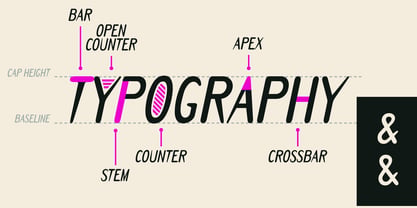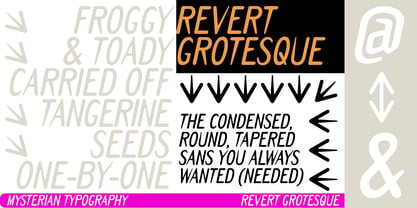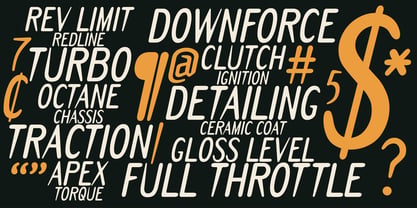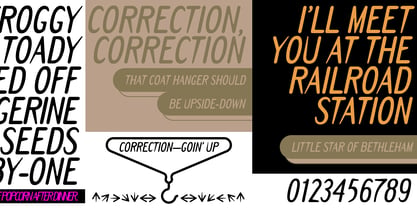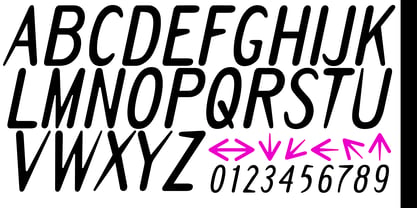
Revert Grotesque
REVERT GROTESQUE is an all-caps, condensed italic typeface that merges highway utility with experimental serif details. Drawing inspiration from the forms and spatial logic of the American Interstate Highway system lettering, it reinterprets this familiar vernacular through a round, tapered serif structure, adding warmth and motion to an otherwise industrial skeleton. The narrow, forward-leaning letterforms create natural momentum and strong vertical emphasis. Rounded terminals and subtle tapering soften the geometry, while the condensed proportions maximize impact in tight spaces. The result is a typeface that feels both infrastructural and expressive—mechanical at first glance, yet unexpectedly refined upon closer inspection. Originally designed for branding and promotional materials for Revert Auto Detailing in Leander, Texas, REVERT GROTESQUE is built to excel in high-visibility environments such as vehicle graphics, bold signage, apparel, and social media. Its clarity at a distance and assertive rhythm make it particularly effective in headline applications where presence and personality are crucial. Now available beyond its original commission, REVERT GROTESQUE invites further exploration. It thrives in automotive and motorsport branding, apparel and merchandise design, packaging and label systems, poster and editorial display, logos and wordmarks, and bold digital headers. REVERT GROTESQUE is not a revival but a reinterpretation—taking cues from mid-century American roadway typography and steering it into new terrain through taper, tilt, and tension. This is another experimental release from Mysterian—crafted with practical purpose, refined through iteration, and now open to the wider design world.